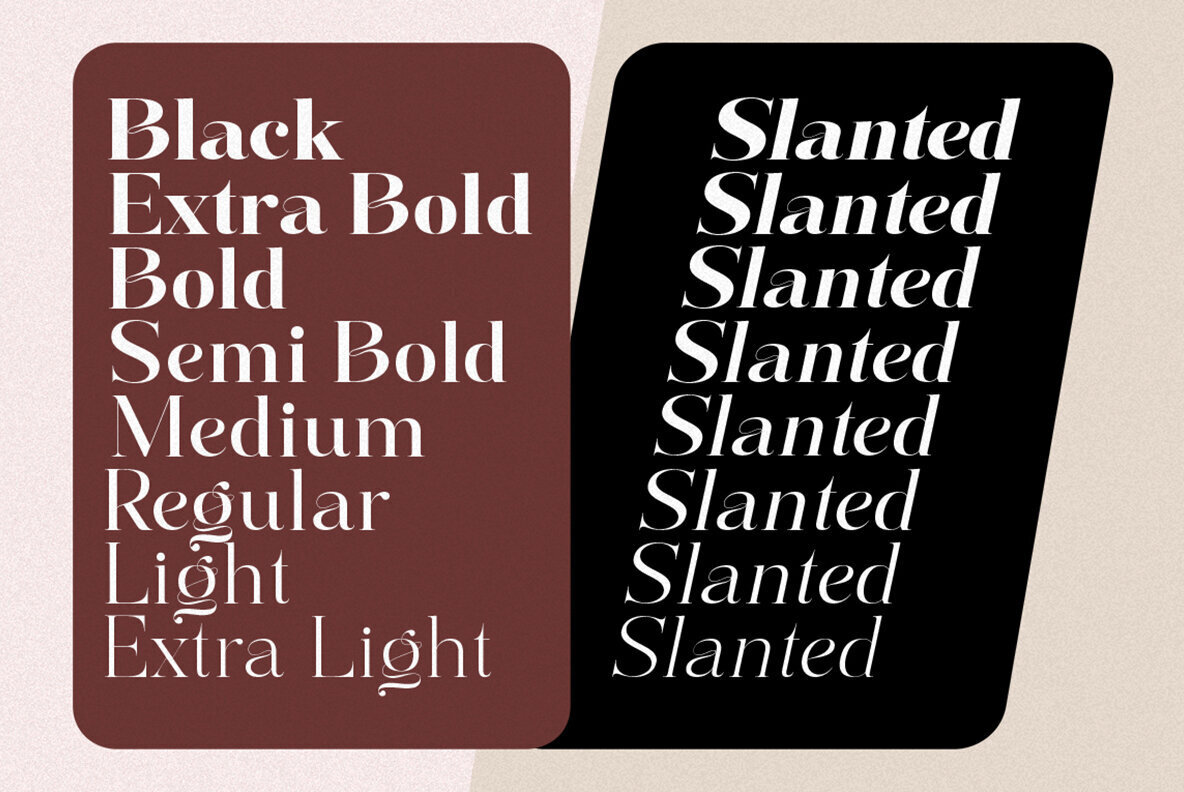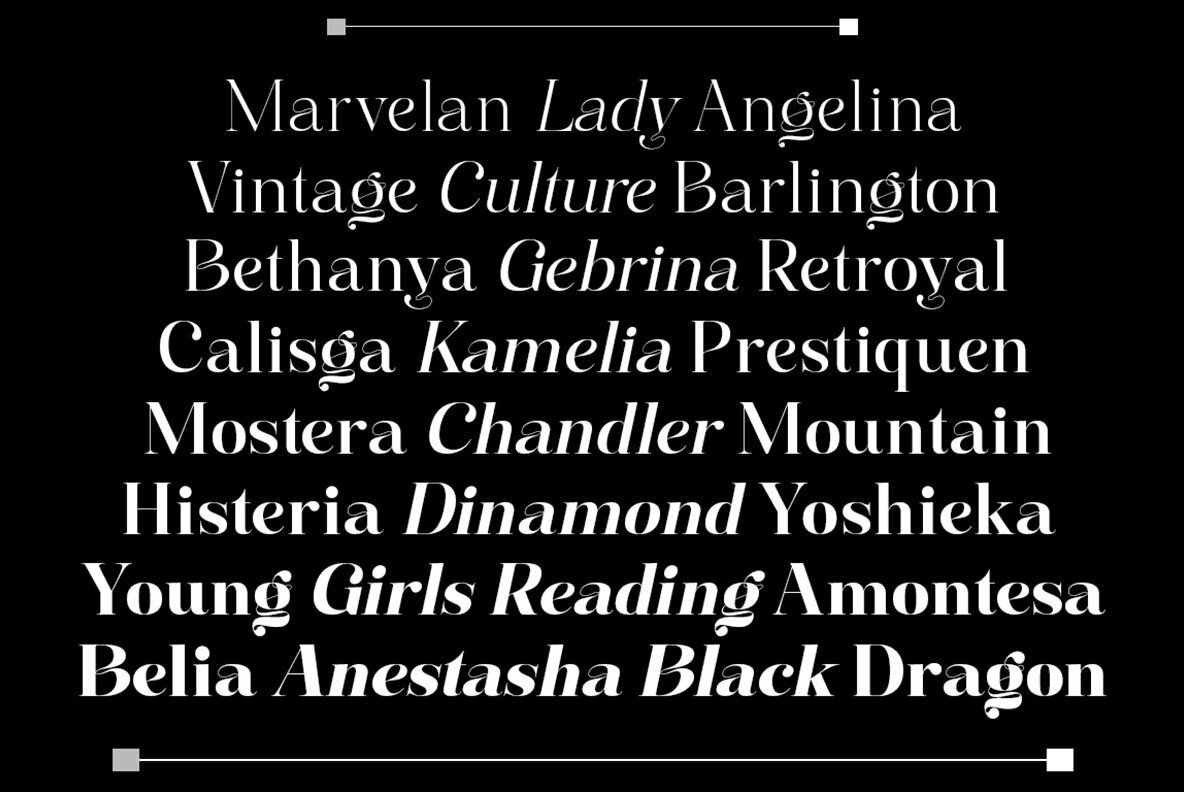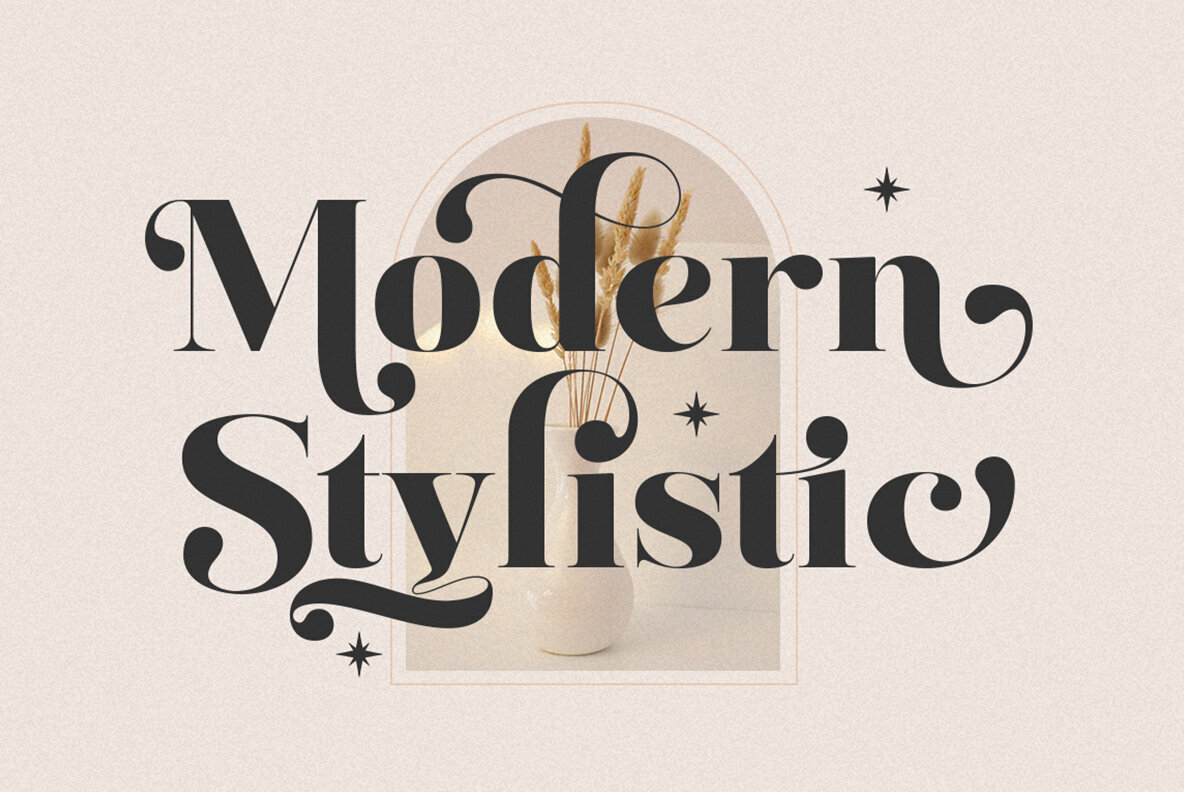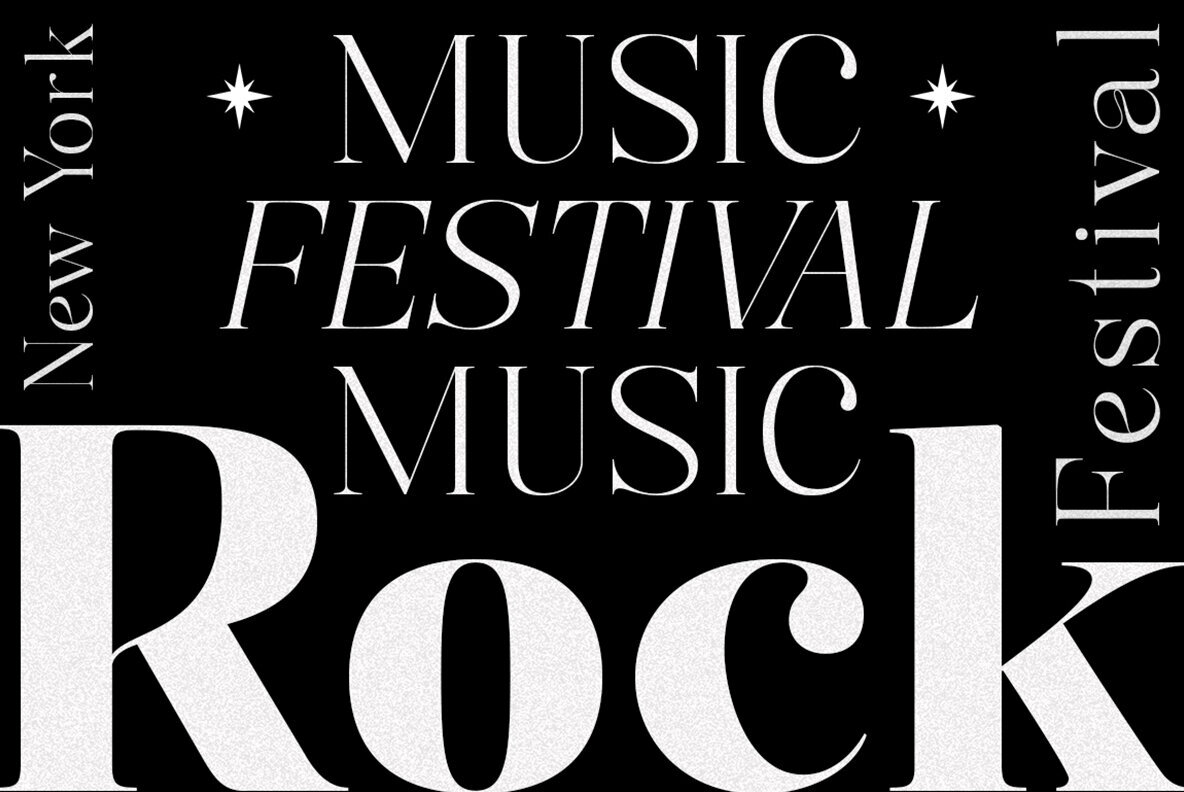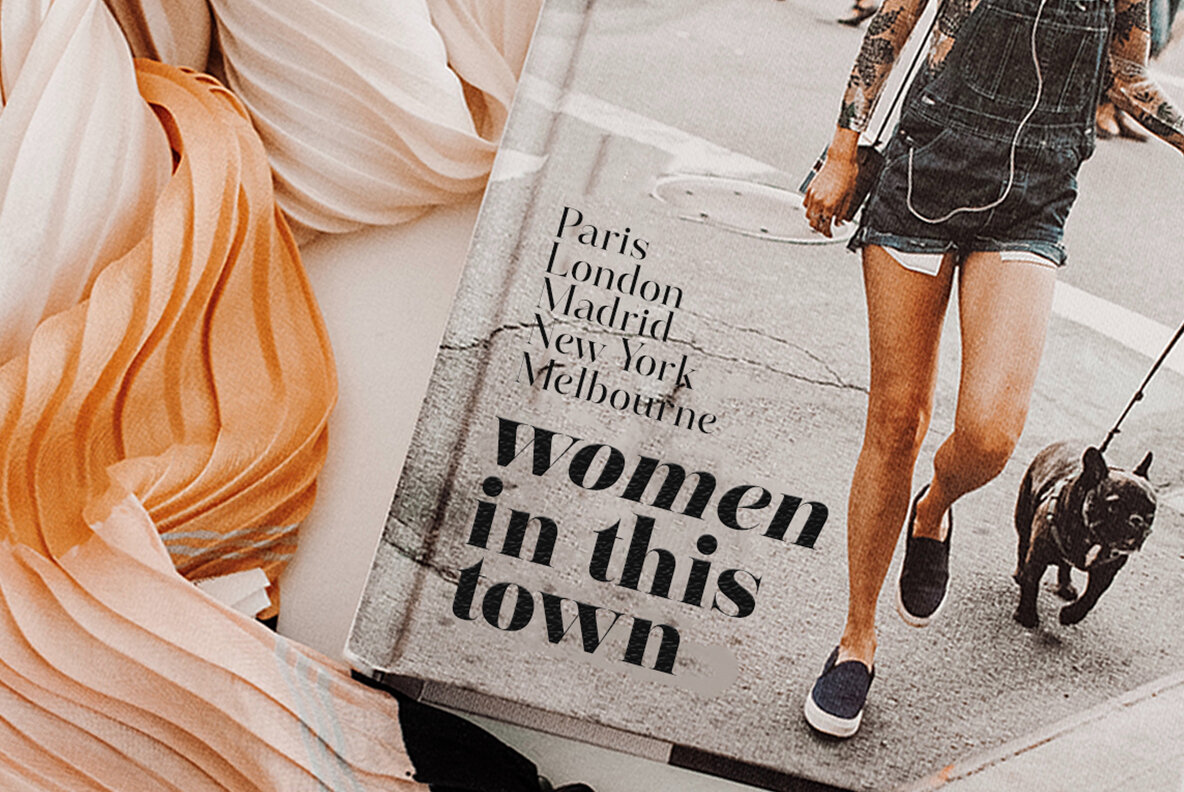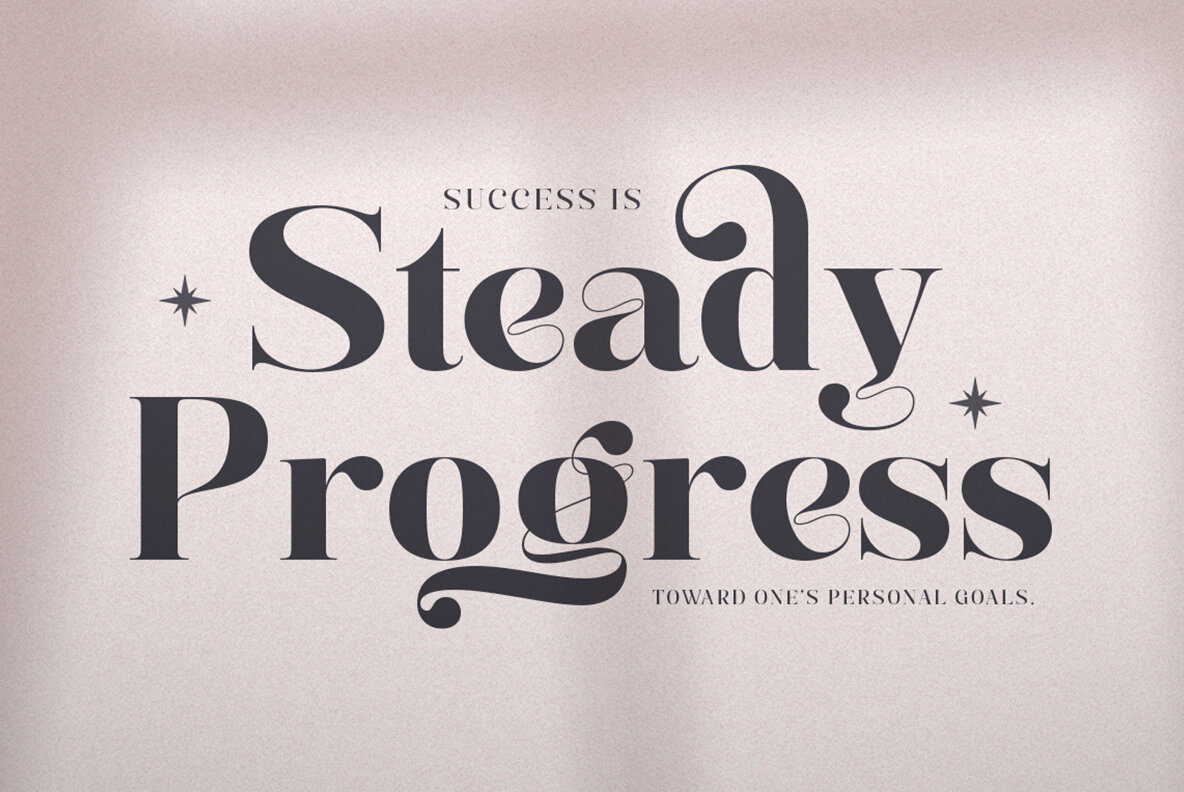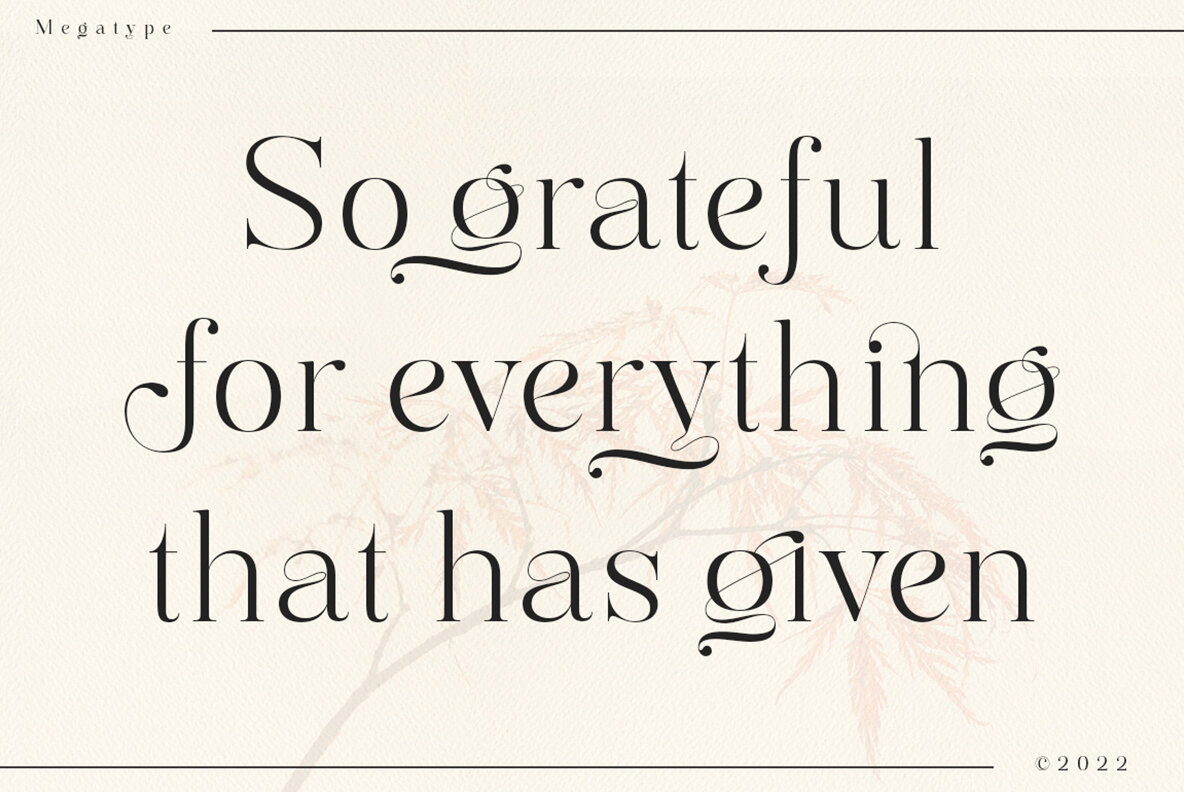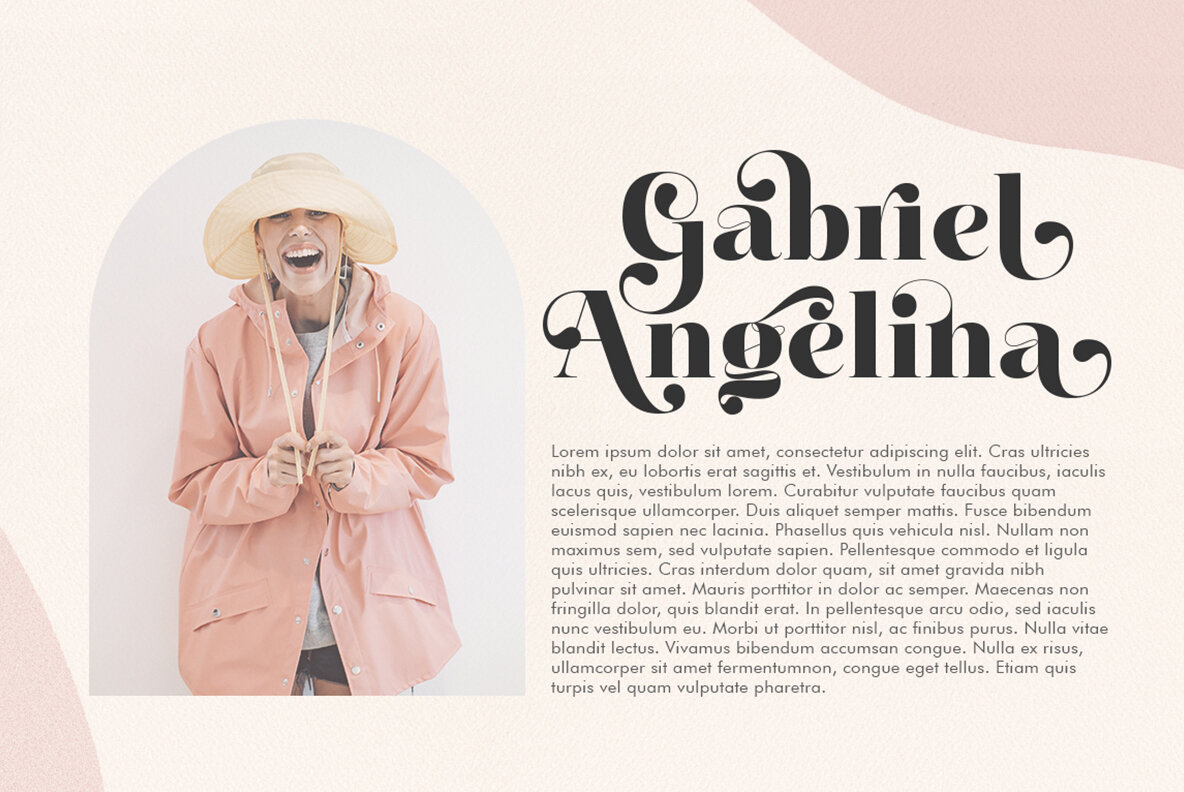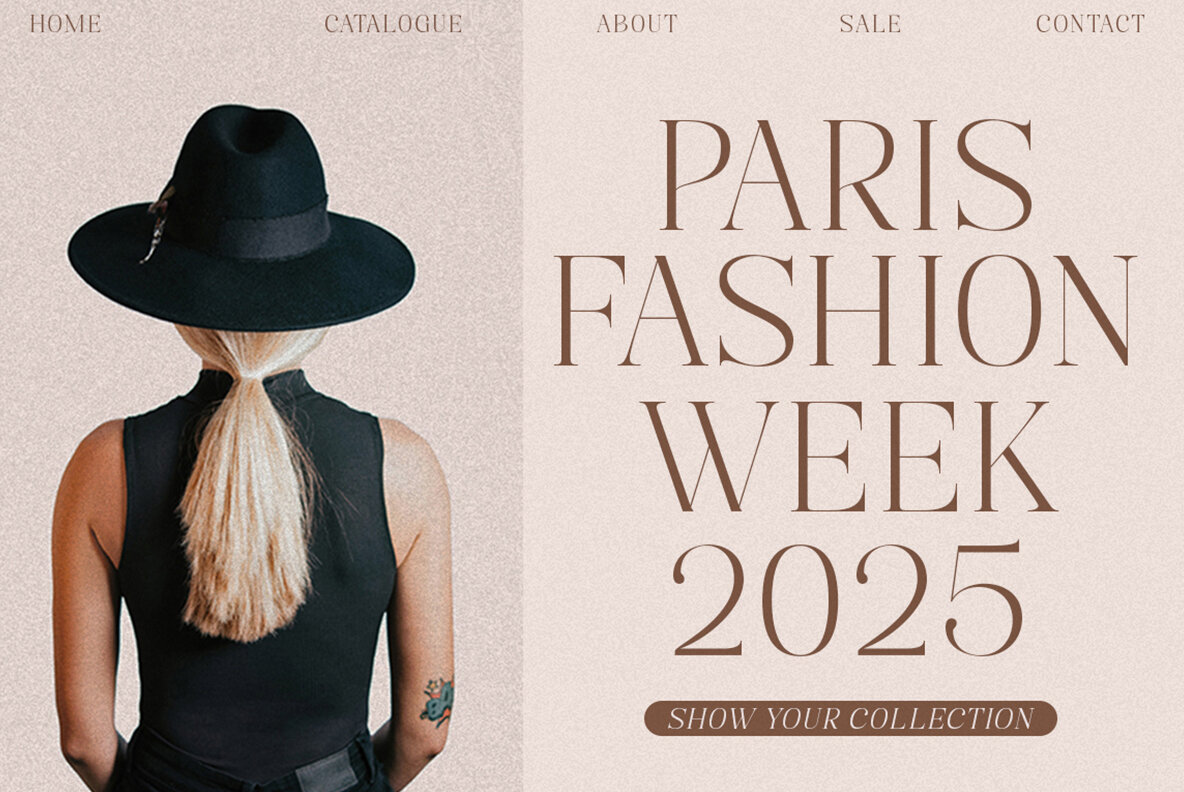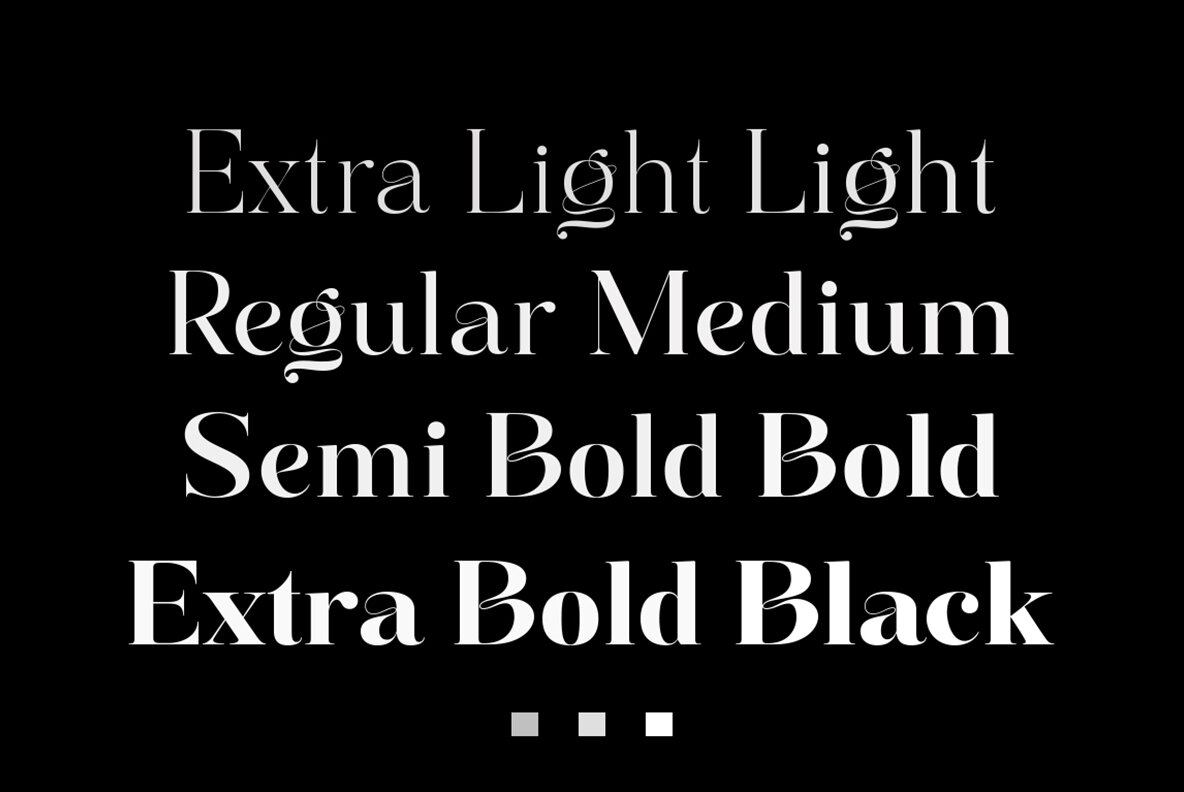
Mingolia Display Font
Mingolia Display brings a contemporary flair to the classic serif form, designed for high-impact headlines and captivating titles. It exudes elegance with its distinct style, making it suitable for both branding and editorial ventures. Available in eight weights, ranging from Extra Light to Black, with matching Oblique variations, Mingolia Display remains effortlessly readable across sizes, enhancing texts with its sophisticated demeanor. Perfect for creating an arresting visual presence, Mingolia Display enhances advertising campaigns, mood boards, and logo designs. Its versatility spans multiple applications, from packaging and vintage aesthetics to modern design projects. Complemented by exquisite ligatures and alternative letterforms, it allows designers to craft unique and highly personalized visuals, ensuring that each project stands out.Mingolia Display: A Modern Serif Font for Stylish Headlines